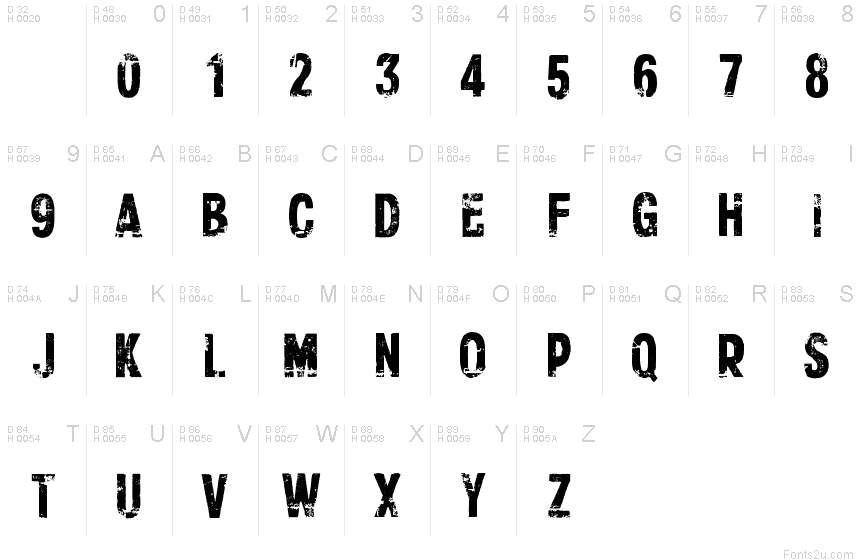
Snubnose Demo Regular Font
Download snubnose demo font · free for personal use · all caps font with lovely traces after the brushstrokes. If you are going to use it commercially, buy the full version, which comes with kerning, embedding rights, all glyphs (including the 4 & 5) and extras from my site: Demo means the font lacks multiple language support, kerning, ligatures, contextual alternates and more, and is for personal use only!
You can use the snubnose demo regular to create interesting designs, covers, shop and store name and logos. This is the demo, bare bones, version of lachrymose. Onlinewebfonts.com is internet most popular font online download website,offers more than 8,000,000 desktop and web font products for you to preview and download.